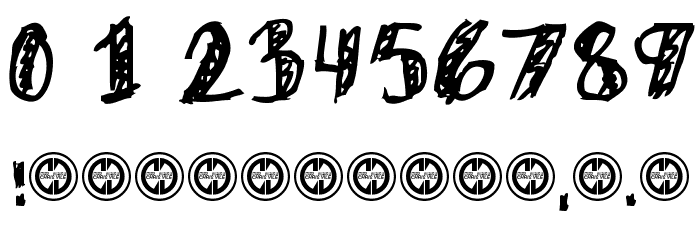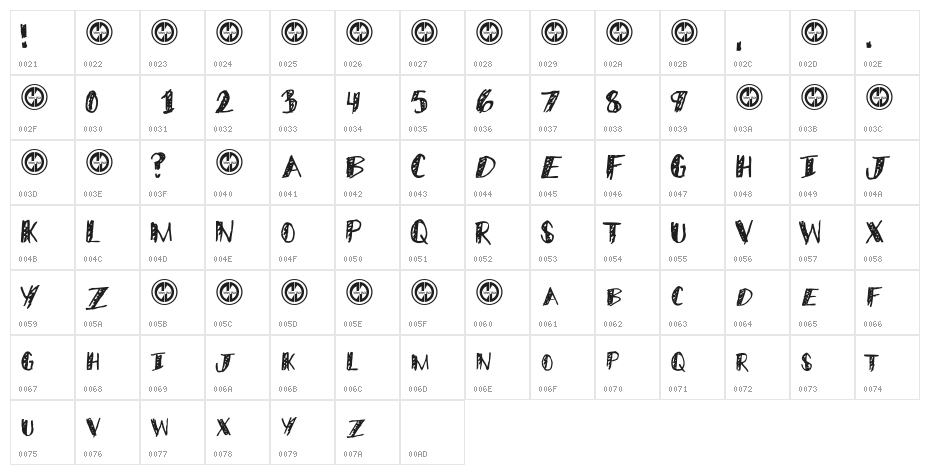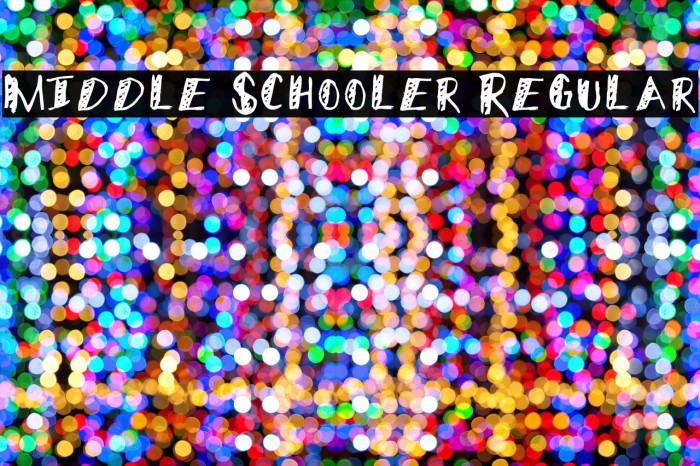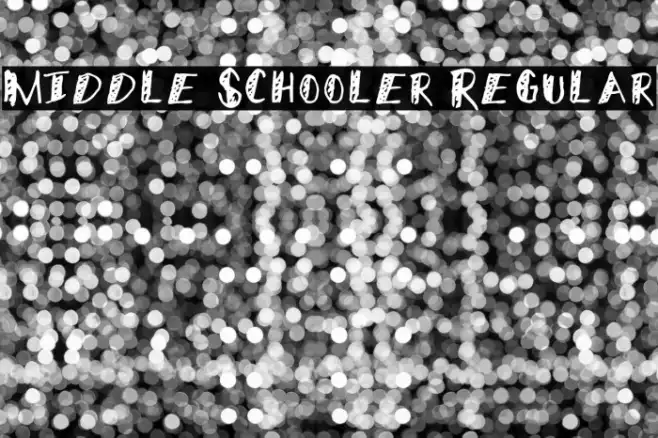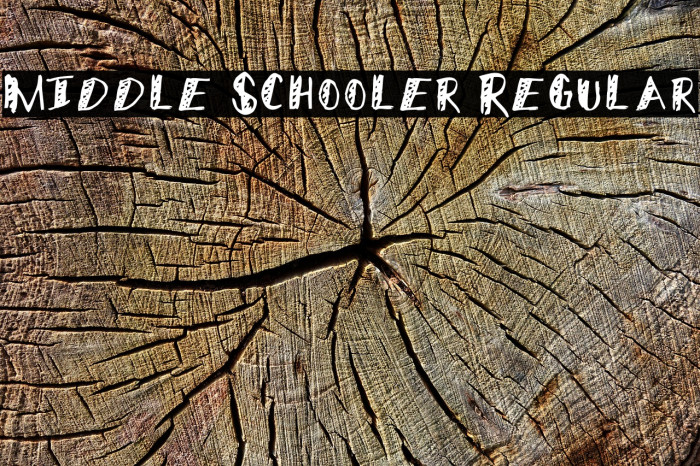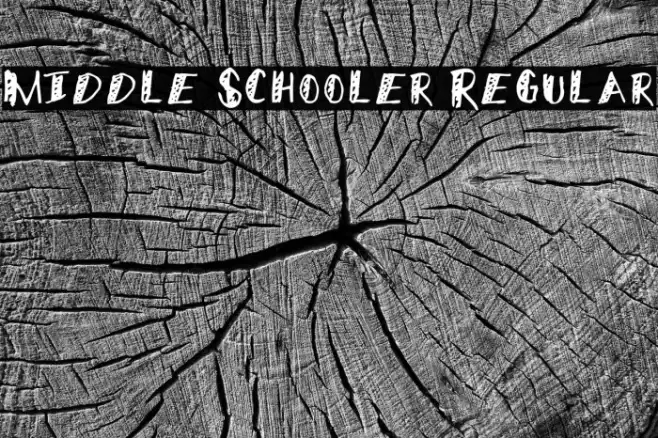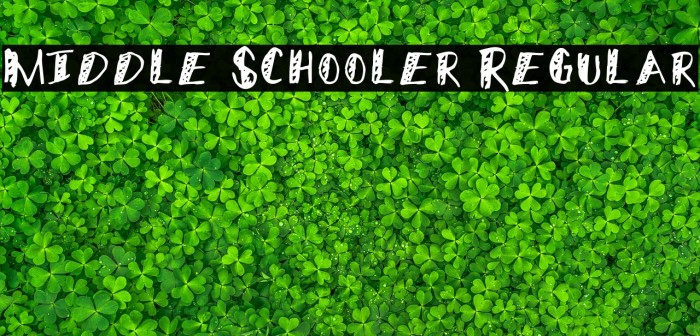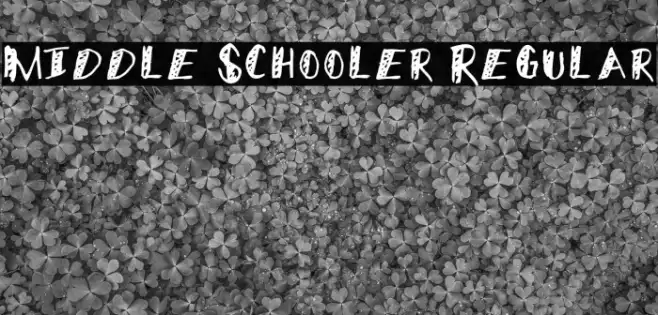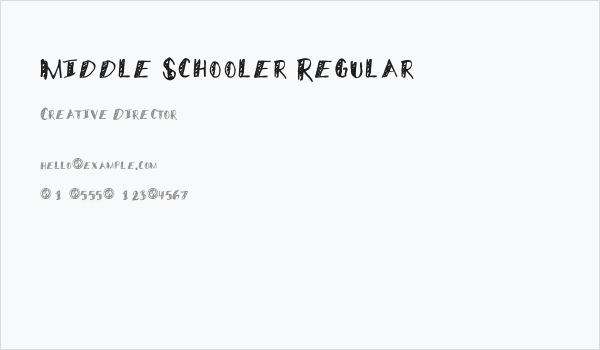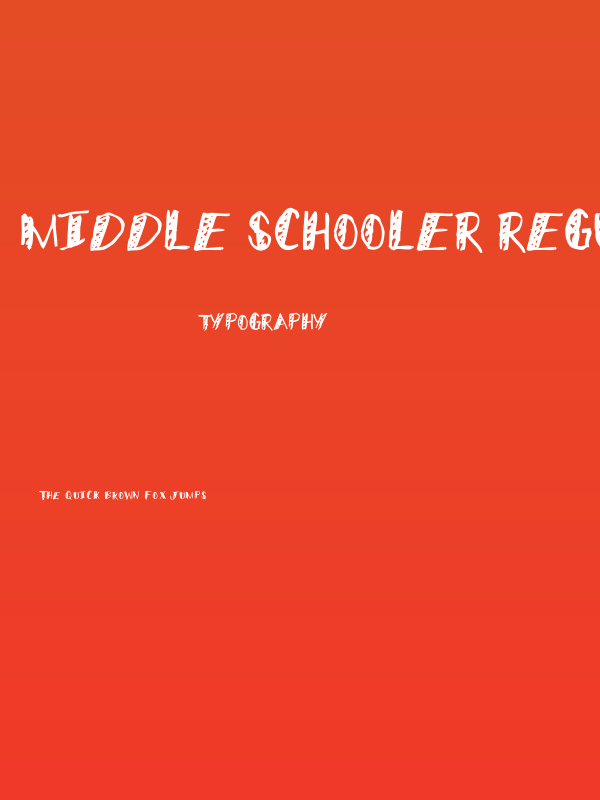
Middle Schooler Regular Font
Middle Schooler Regular Description
This font features a playful and energetic style, reminiscent of doodles or sketches made by a middle school student. The letters are bold and have a hand-drawn appearance, with uneven edges and a slightly chaotic feel. The strokes are thick and vary in width, adding to the dynamic and informal look. The uppercase and lowercase letters maintain a consistent style, with a slight slant that gives the font a sense of movement. Numbers and special characters are included, matching the overall whimsical theme. This font is perfect for projects that require a fun and youthful touch.
| Proposed Projects | Ideal for children's book covers, school event posters, playful branding, and creative social media graphics. |